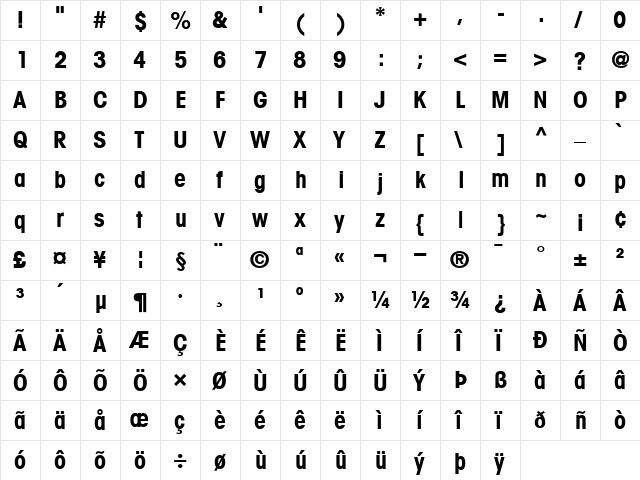
ITCAvantGardeGothic-Condensed Bold Font Preview
Design Context for ITCAvantGardeGothic-Condensed Typeface
ITCAvantGardeGothic-Condensed has the quiet confidence of well-executed sans-serif typography: versatile, unobtrusive, and dependable at any size. The heavy weight commands attention and anchors typographic hierarchies. The condensed width makes it efficient for tight spaces without sacrificing legibility.
Well-suited to navigation labels, product packaging, and anywhere legibility at scale is essential.
Font Pairing: Use ITCAvantGardeGothic-Condensed for headlines alongside a lighter-weight sans or serif for body copy to establish clear visual hierarchy.
Pro Tip: Use ITCAvantGardeGothic-Condensed tightly set in headlines and banners — its condensed proportions make it ideal for maximum impact in minimum horizontal space.